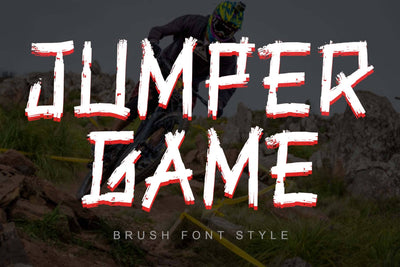
Jumper Game
"Jumper Game" is an elegant and modern brush font. This font is equipped with uppercase, lowercase, numerals, punctuations and multilingual support. It is very suitable for movie titles, book titles, magazine covers, banners, posters, prints, stickers, halloween, concerts, invitations, summer, spring, easter and others.